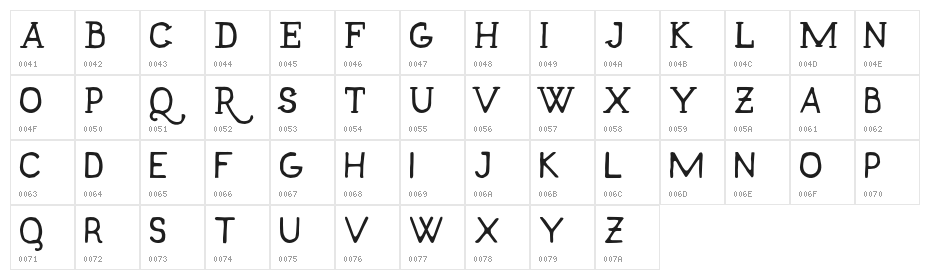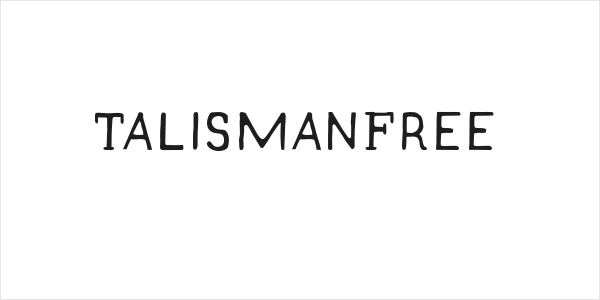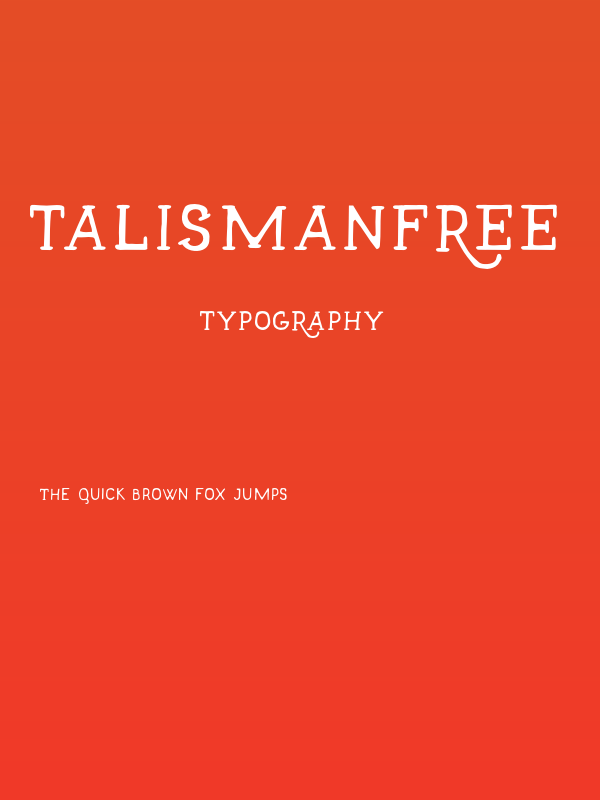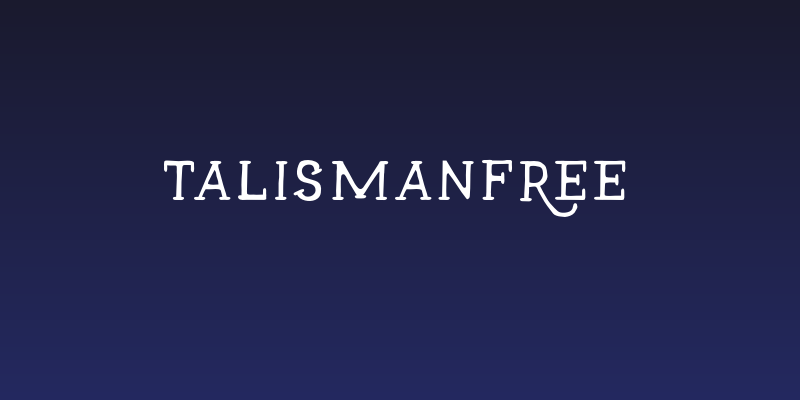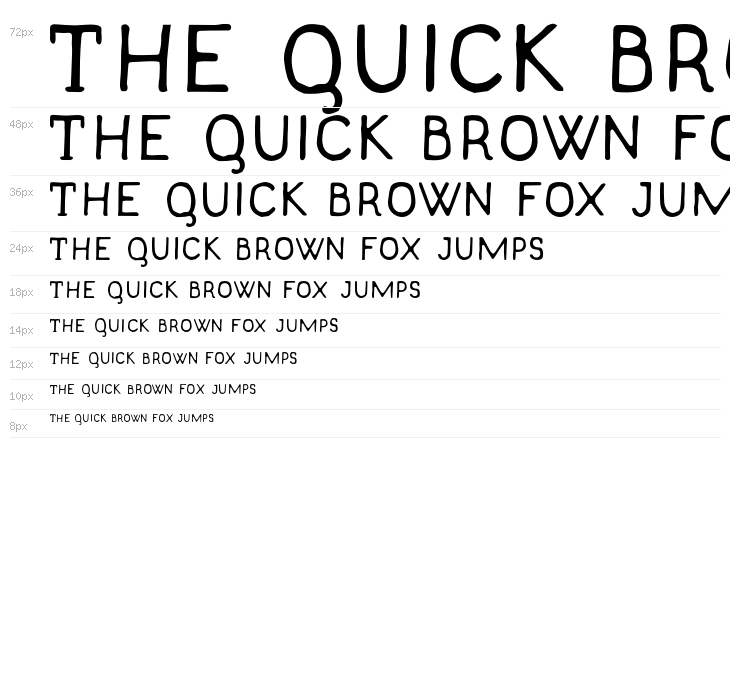
TalismanFree Font
TalismanFree Description
This font features a distinctive, decorative style with a playful and whimsical character. The uppercase letters exhibit a unique blend of traditional serif elements with unexpected curves and flourishes, giving it a hand-drawn appearance. The lowercase letters maintain a consistent style, offering a cohesive look across the alphabet. The numerals and special characters are crafted with the same attention to detail, ensuring uniformity throughout. This font's artistic flair makes it suitable for creative projects that require a touch of elegance and individuality.
| Proposed Projects | Ideal for invitations, greeting cards, posters, and branding that seeks a unique and artistic touch. |